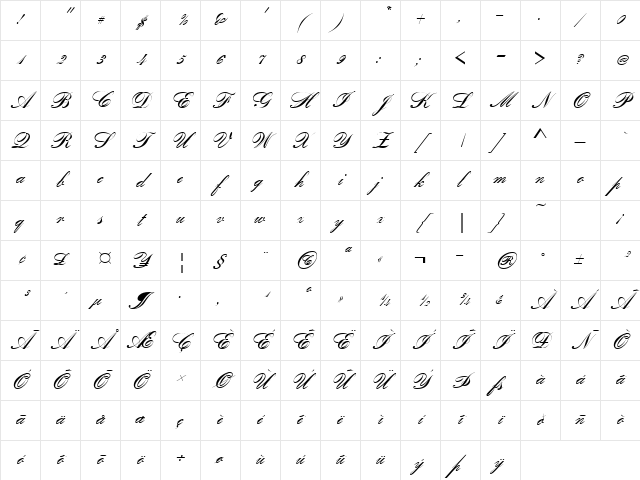
BankScrD Regular
Complete BankScrD Regular glyph index. Displaying only characters natively supported by BankScrD Regular font.
Design Context for BankScrD
BankScrD is a composed and adaptable typeface that performs quietly and consistently across a wide range of design contexts.